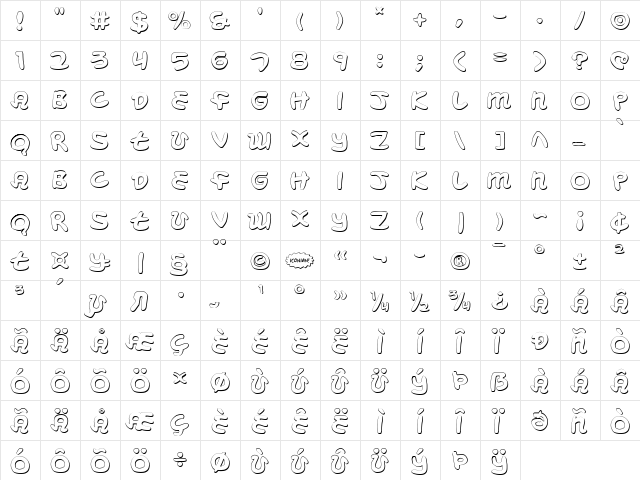
Magic Beans 3D 3D
Design Context for Magic Beans 3D Typeface
Magic Beans 3D is a composed and adaptable typeface that performs quietly and consistently across a wide range of design contexts.